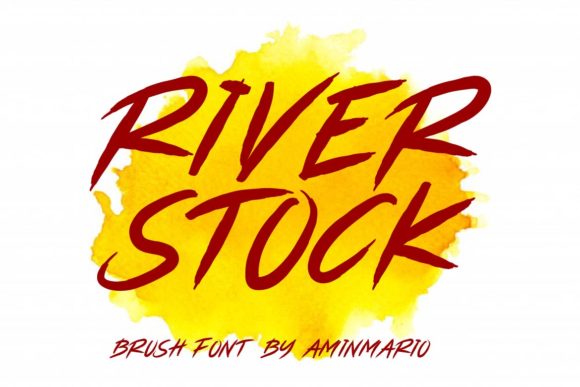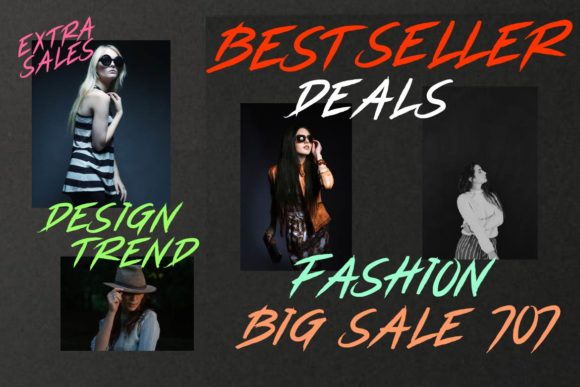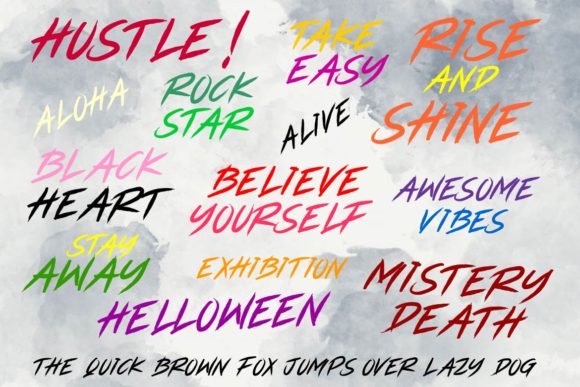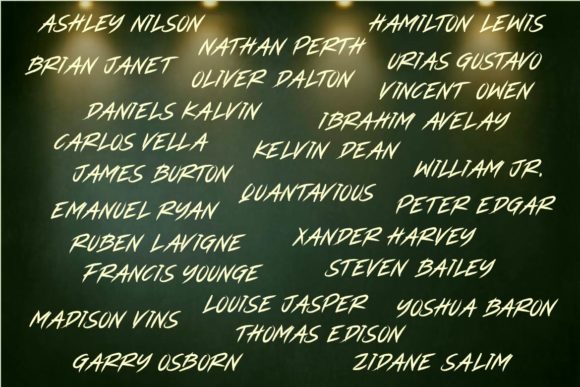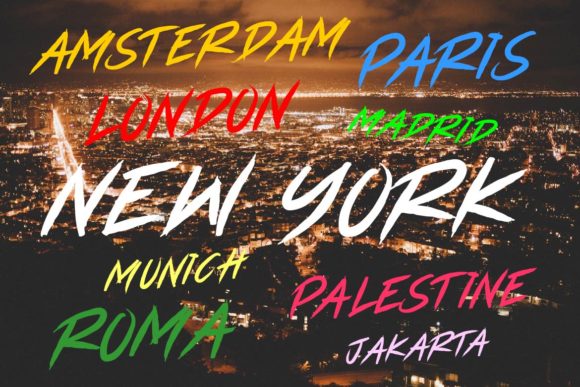
Riverstock Font
About Riverstock Font
Riverstock is a simple and casual all caps script font with an undeniably clean feel. With its neat and beautiful arrangement of letters, this typeface will look outstanding in any crafting project!